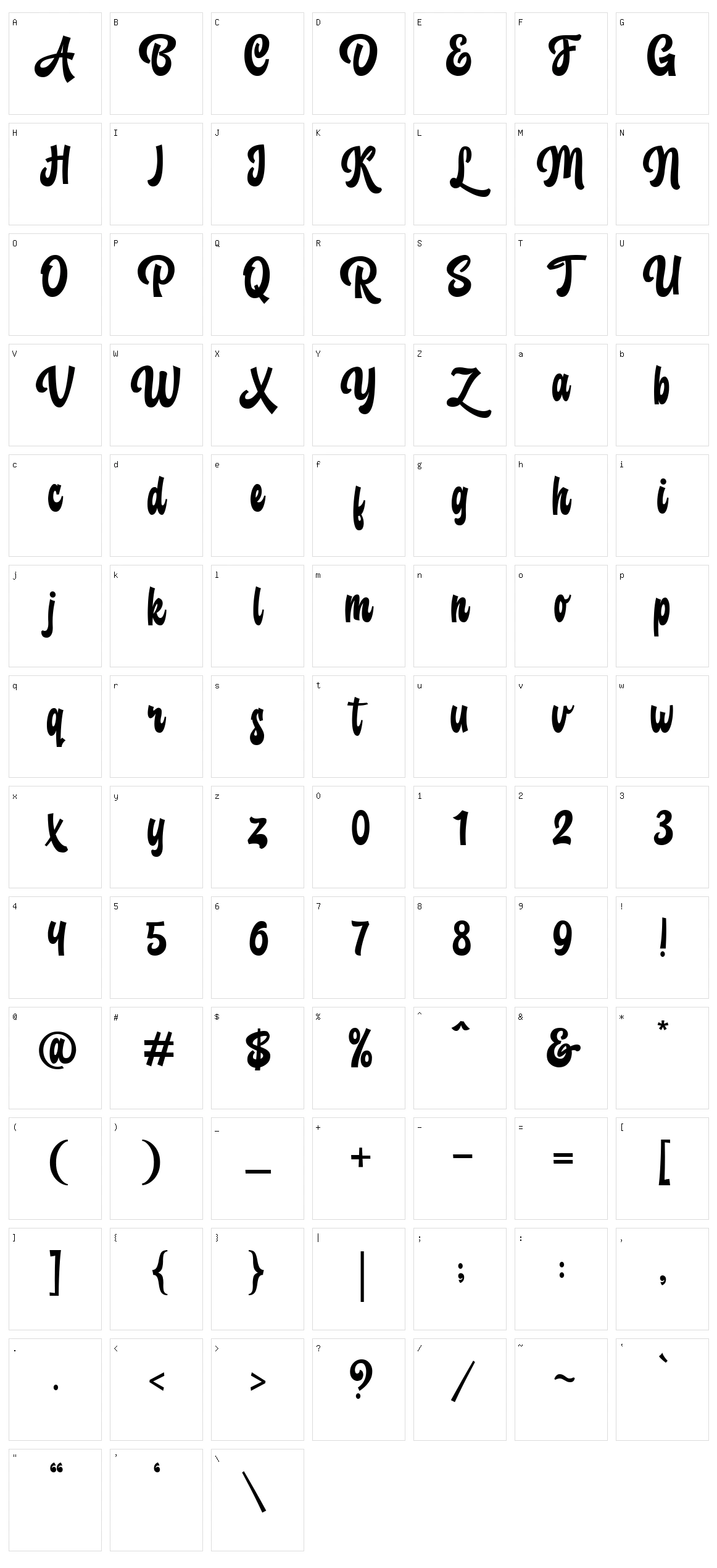
The free font Backstranger is carefully designed by Kong Font, showcasing a thoughtful balance of creativity and usability and falls under the Old-School font style. When you download the ZIP file, it contains only 1815.17 KB of font files, making it lightweight and quick to download. Please review the license details below to understand permitted usage and distribution rights. If license information is not available, we recommend using this font for personal projects only or contacting the author directly for commercial usage permissions.